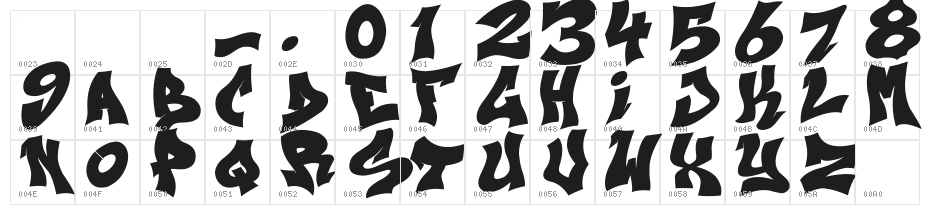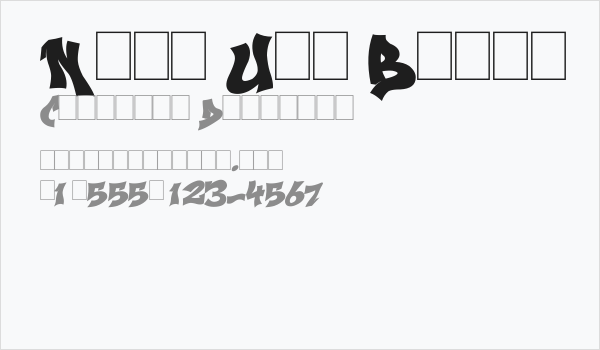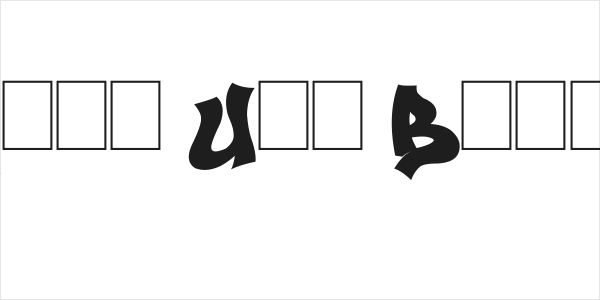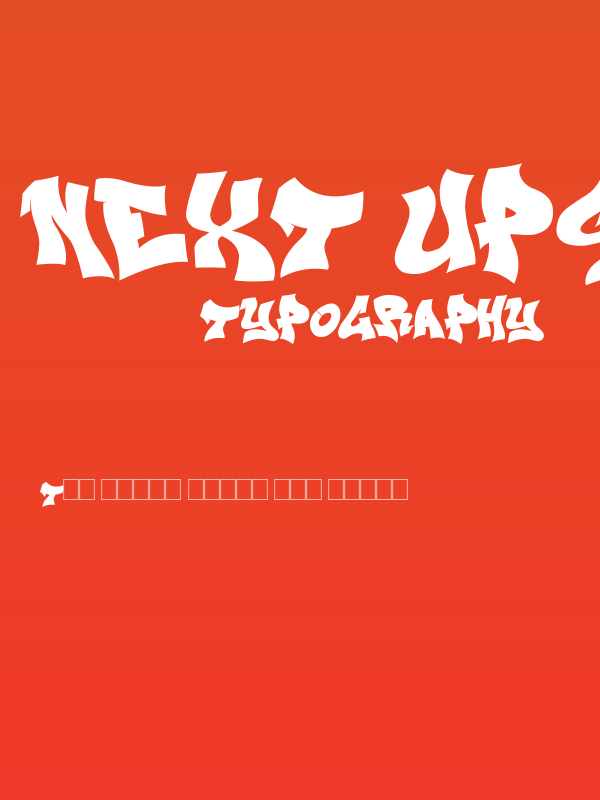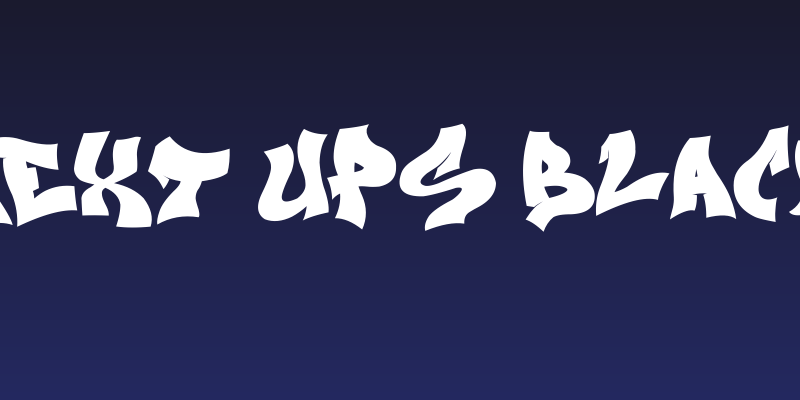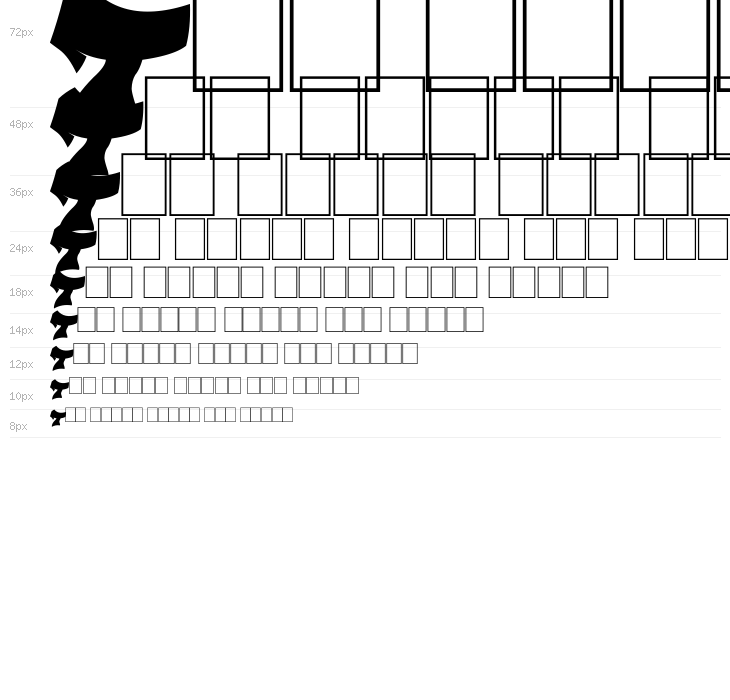
Next Ups Black Font
Next Ups Black Description
This font features a bold and dynamic style with sharp, angular edges and a graffiti-like appearance. The characters are heavily stylized, with exaggerated curves and points that give a sense of movement and energy. The uppercase and lowercase letters maintain a consistent design, while the numerals and special characters follow the same bold and expressive theme. The overall look is striking and attention-grabbing, making it suitable for projects that require a strong visual impact.
Overall StyleModern, Urban
Proposed ProjectsIdeal for street art designs, music album covers, urban-themed posters, and edgy branding projects.